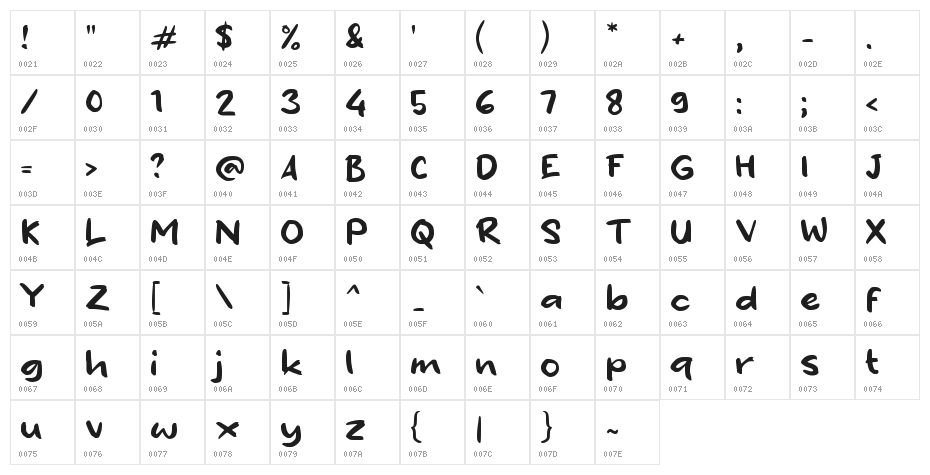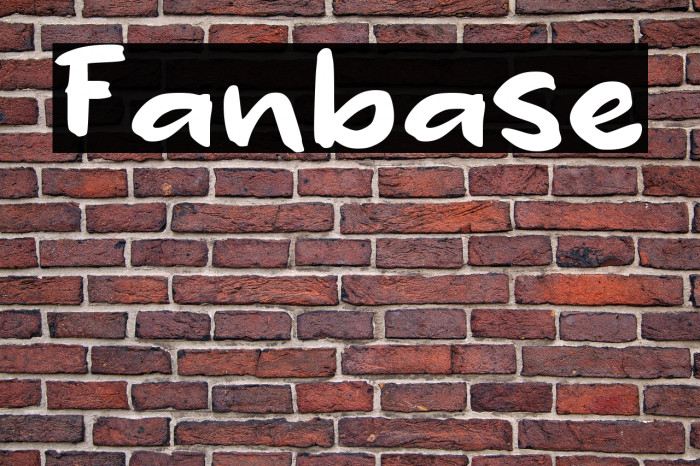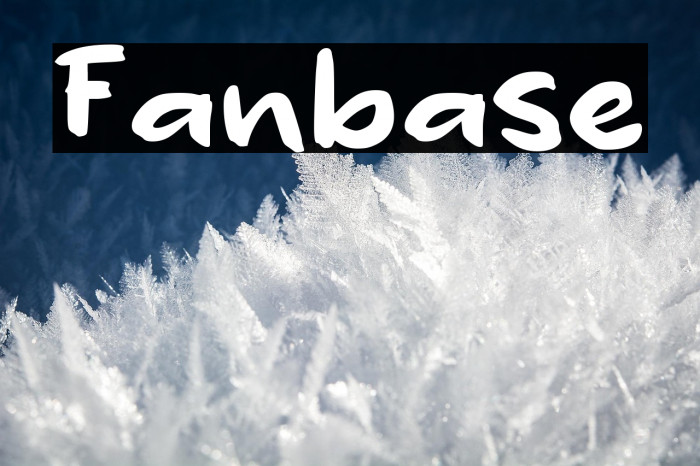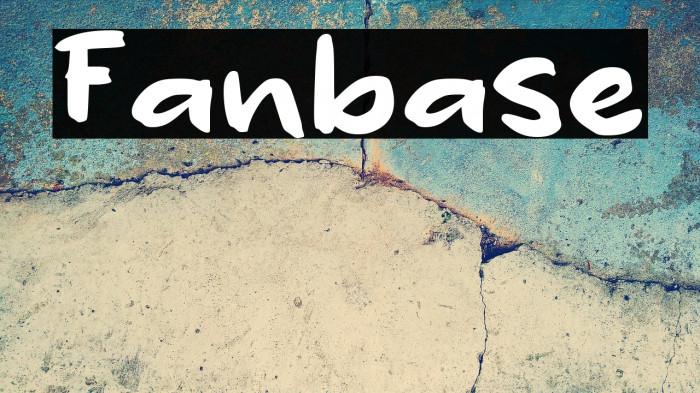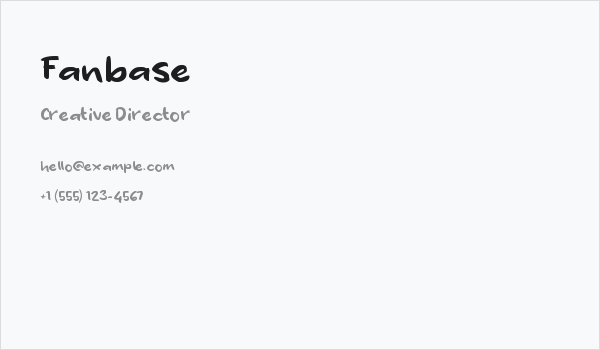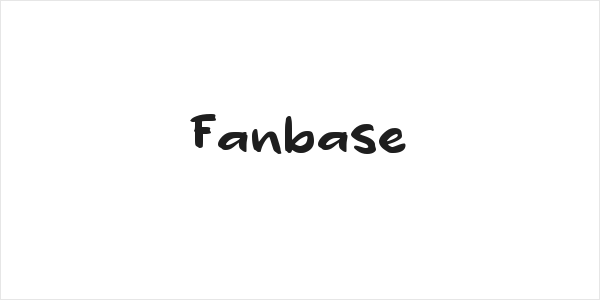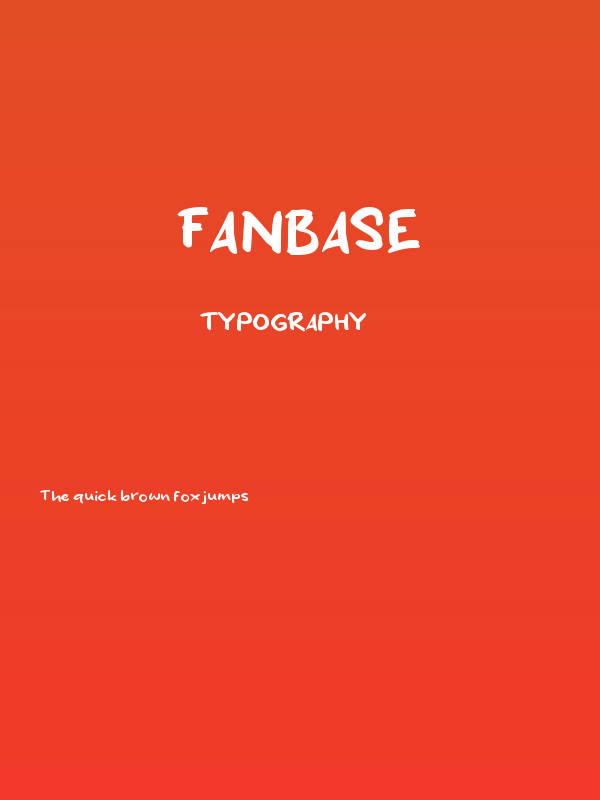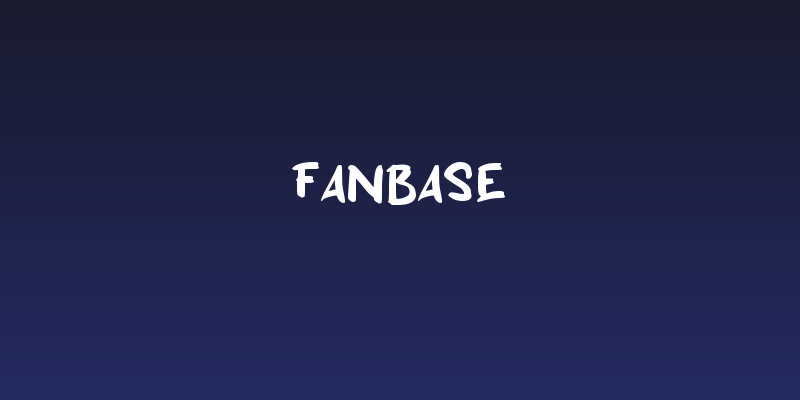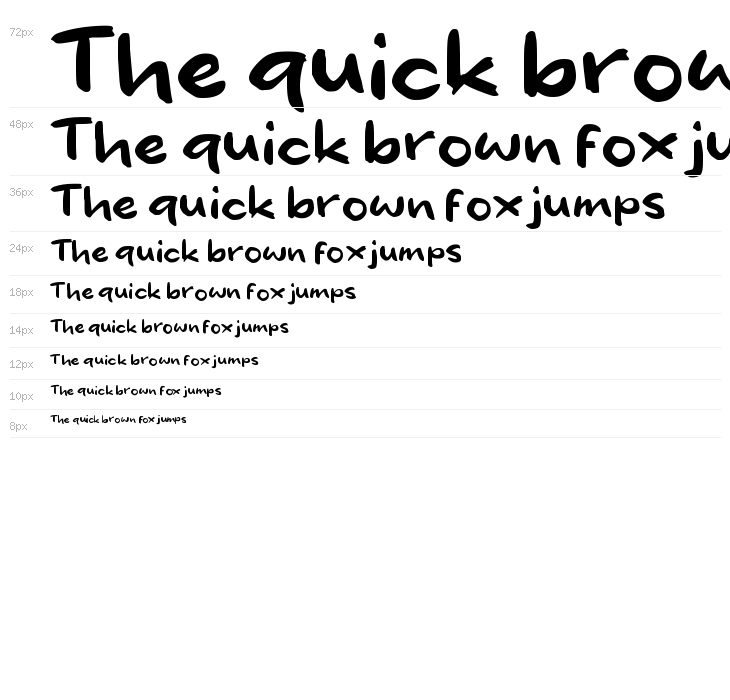
Fanbase Font
Fanbase Description
This font features a playful and energetic style with bold, rounded strokes that convey a sense of fun and informality. The letters are slightly irregular, giving it a hand-drawn appearance that adds a personal touch. The uppercase and lowercase letters maintain a consistent weight, while the numbers and special characters are designed to match the overall aesthetic. The font's casual and approachable look makes it ideal for projects that aim to be friendly and engaging.
| Overall Style | Casual |
| Use Case | Headlines, Logos, Informal Text |
| Proposed Projects | Perfect for children's books, comic strips, playful branding, and casual invitations. |